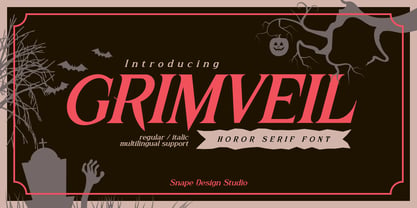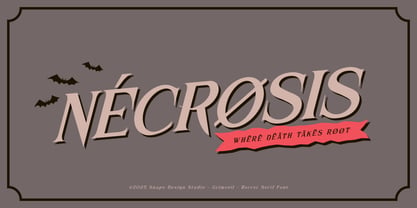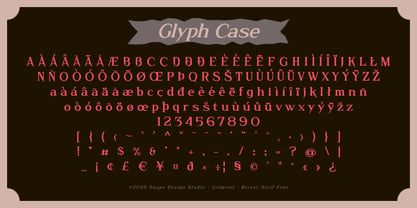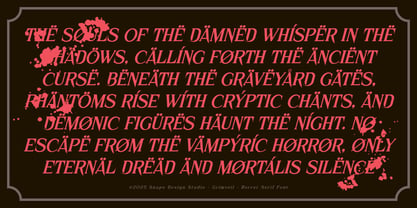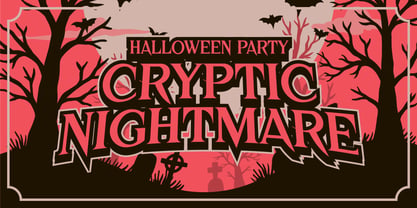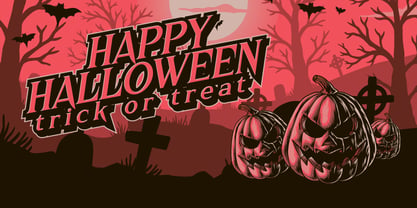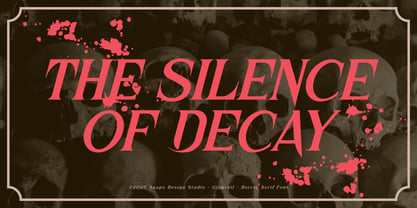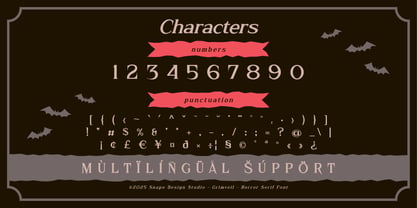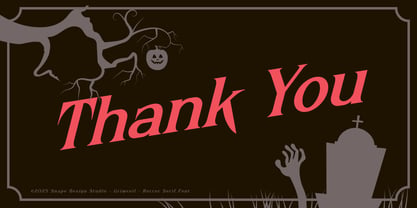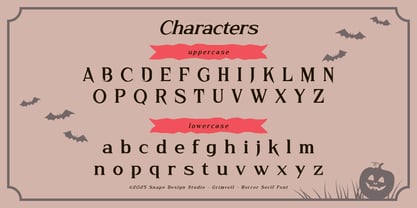
Grimveil
by snapedsgn
The Grimveil Font Family was designed by Ario Sabrang and published by snapedsgn. Grimveil contains 2 styles and family package options. More about this family
Grimveil is a gothic inspired serif font that captures the essence of horror, mystery, and dark elegance. With sharp, haunting letterforms and dramatic details. Grimveil is perfect for horror movie posters, book covers, music artworks, Halloween events, and any design that seeks to evoke an eerie and chilling atmosphere. Carefully crafted to blend gothic sophistication with sinister undertones, this font brings a unique balance of elegance and fear. Its sharp edges and bold presence make Grimveil an excellent choice for designers looking to create visuals that are both striking and terrifying. Key Features: Horror-themed serif font with gothic and dark aesthetics Perfect for movie posters, book covers, music artworks, and Halloween designs Sharp and dramatic details for an eerie atmosphere Multilingual support for global usability Unveil the darkness with Grimveil a font where elegance meets horror. Best Regards, Snape Design Studio
Designers: Ario Sabrang
Foundry: snapedsgn